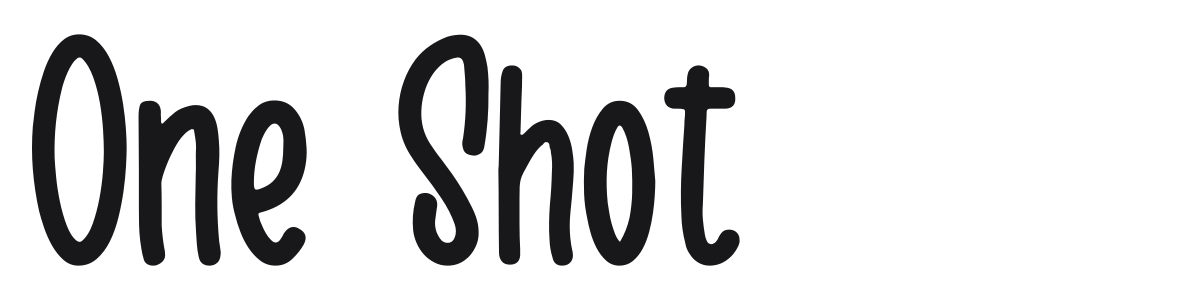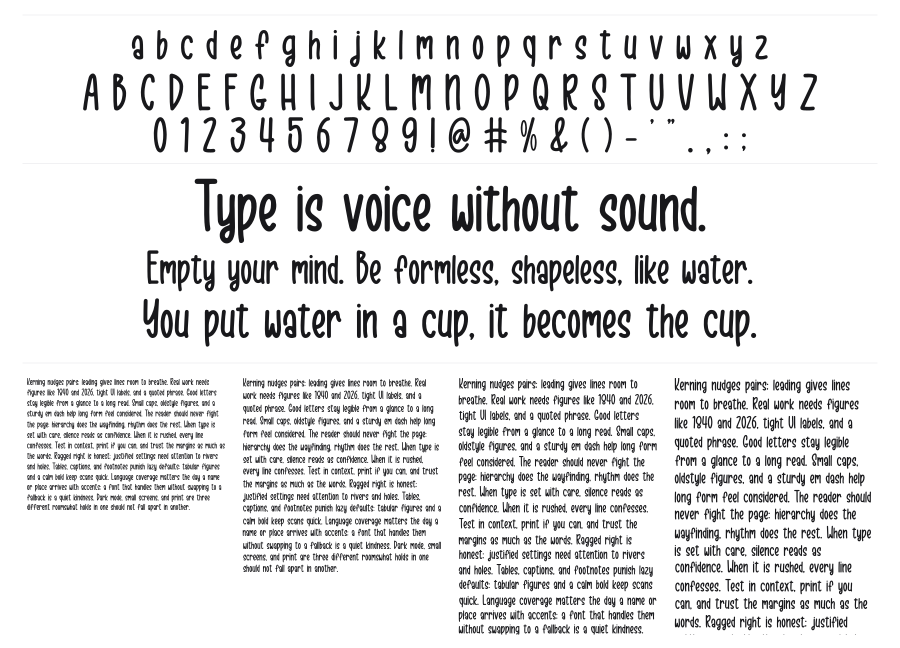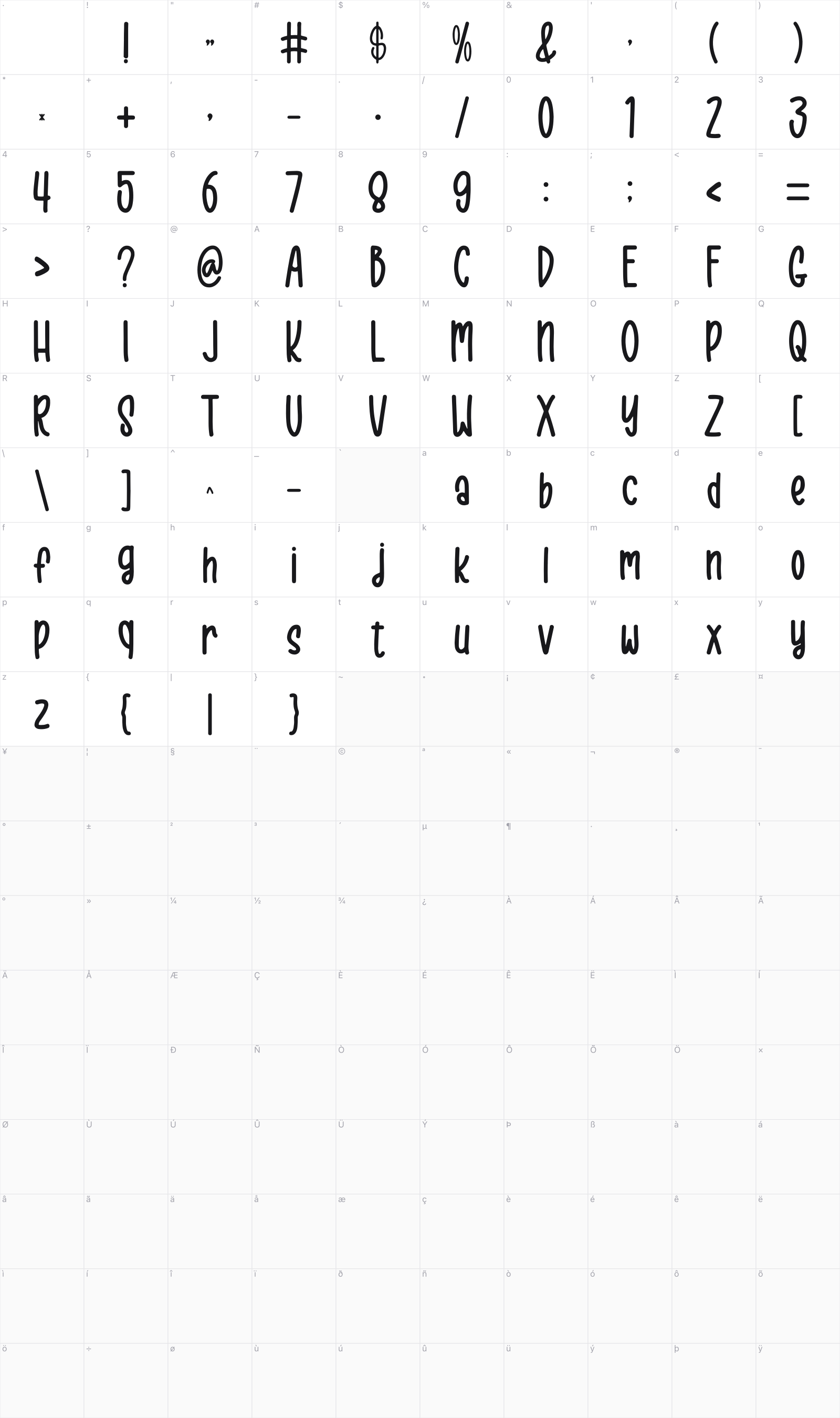
One Shot
One Shot is a bold rounded display font with a playful, hand-drawn spirit from Rangkai Aksara. Its soft clubbed terminals and slightly irregular letter shapes give it a casual comic warmth without crossing into full handwriting territory. Works well for children's content, casual food branding, and any headline that needs to feel approachable rather than formal.